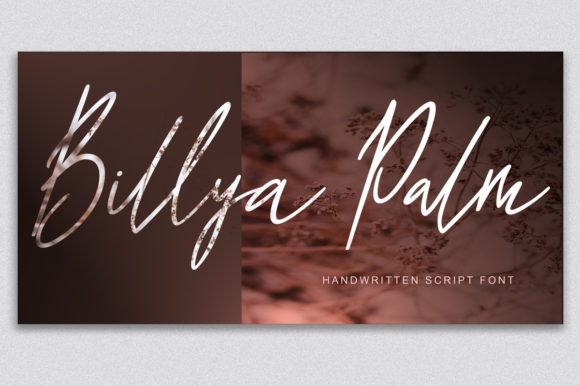
The Magical World of Billya Palm Font
Have you ever been in the middle of a design project, and suddenly, you’re stuck on finding the perfect font? I recall a recent experience where I was working on a whimsical craft project, and my client’s request for a playful yet elegant font had me scouring the internet for hours. That’s when I stumbled upon the enchanting Billya Palm Font! ✨
A Personal Review of Billya Palm Font
As a designer, I’m always on the lookout for fonts that not only look great but also offer flexibility and ease of use. Here’s my honest review of Billya Palm Font:
• ✨ Charming and Playful Characters: Each letter seems to dance along the baseline, adding a touch of magic to any project.
• 💫 Versatility: Perfect for a wide range of projects, from crafting and scrapbooking to digital designs and branding.
• ⚠️ Glyph Overload: With so many glyphs and ligatures available, it can be overwhelming to navigate, especially for beginners.
• 🤔 Pairing Challenges: Finding the perfect pairing font can be a bit tricky, but the results are well worth the effort.
The Story Behind Billya Palm Font
Rumor has it that the creator of Billya Palm Font was inspired by tropical palm trees swaying gently in the breeze. The designer aimed to capture the carefree spirit of a tropical paradise and bottle it up into a font that’s both whimsical and elegant. While the exact story might be fictional, one thing is certain – Billya Palm Font brings a touch of magic to any project.
Is Billya Palm Font suitable for body text? While Billya Palm Font is primarily designed for display purposes, it can be used for short paragraphs of body text, but readability may vary depending on the size and context.